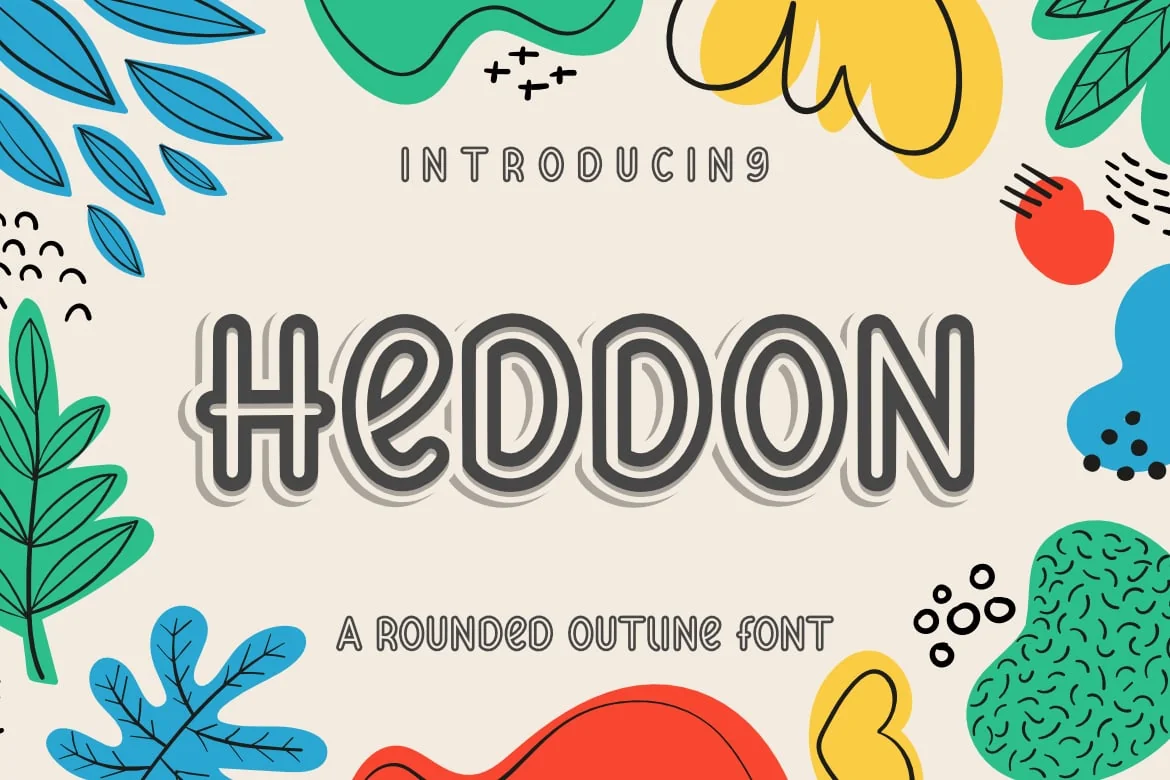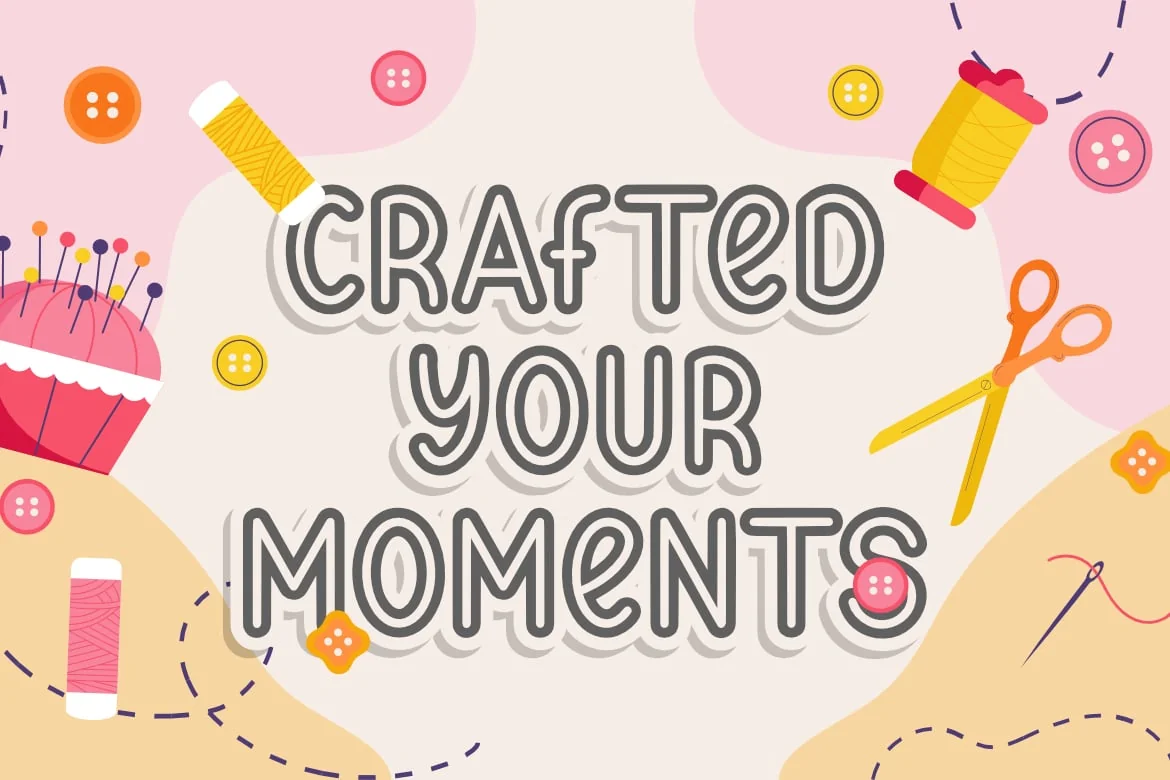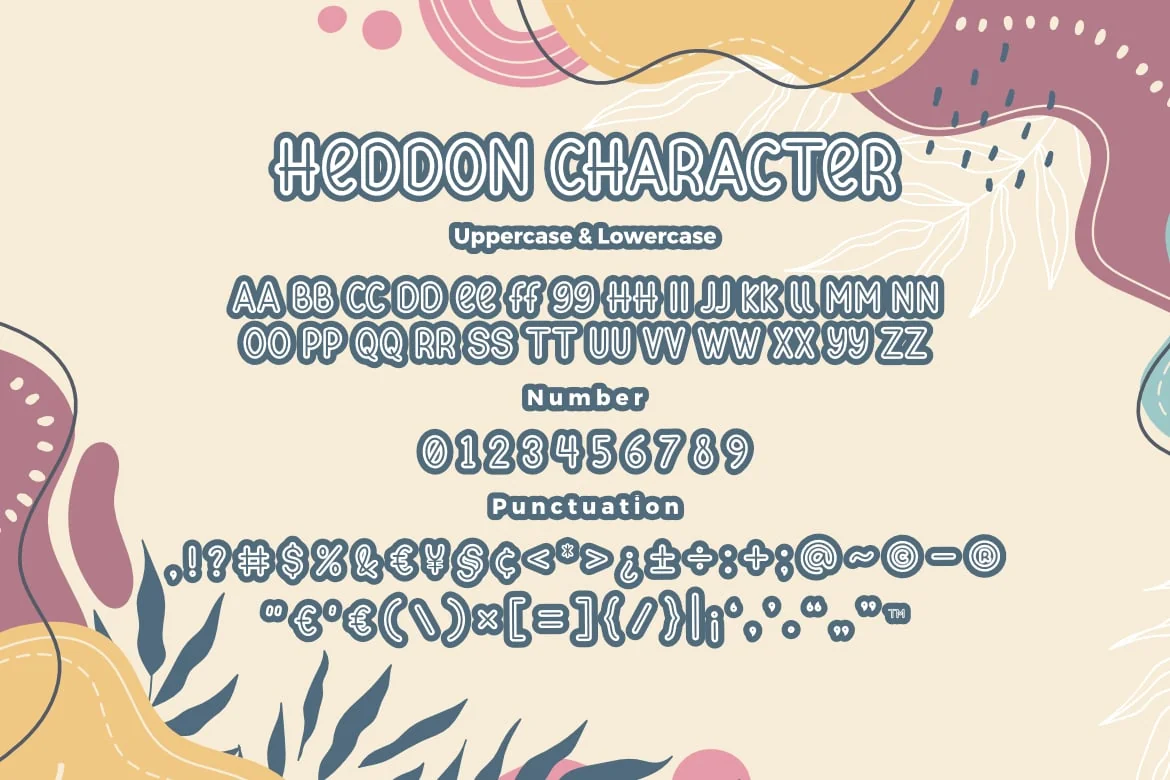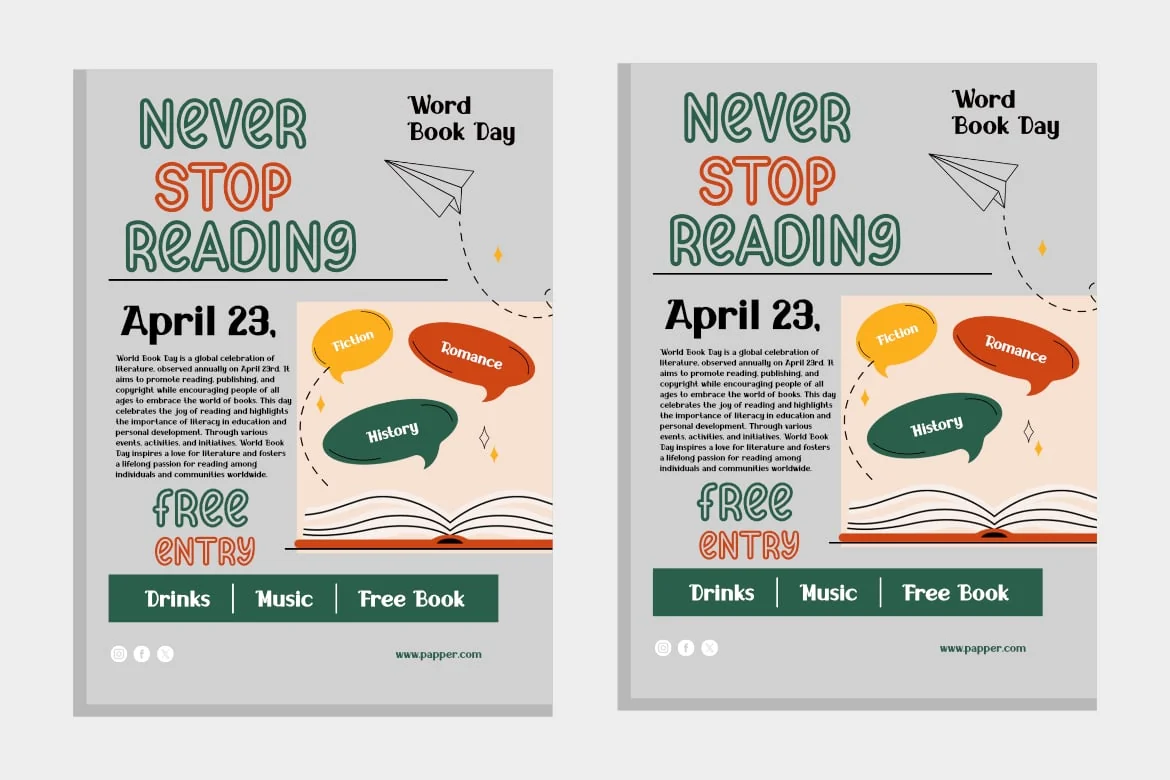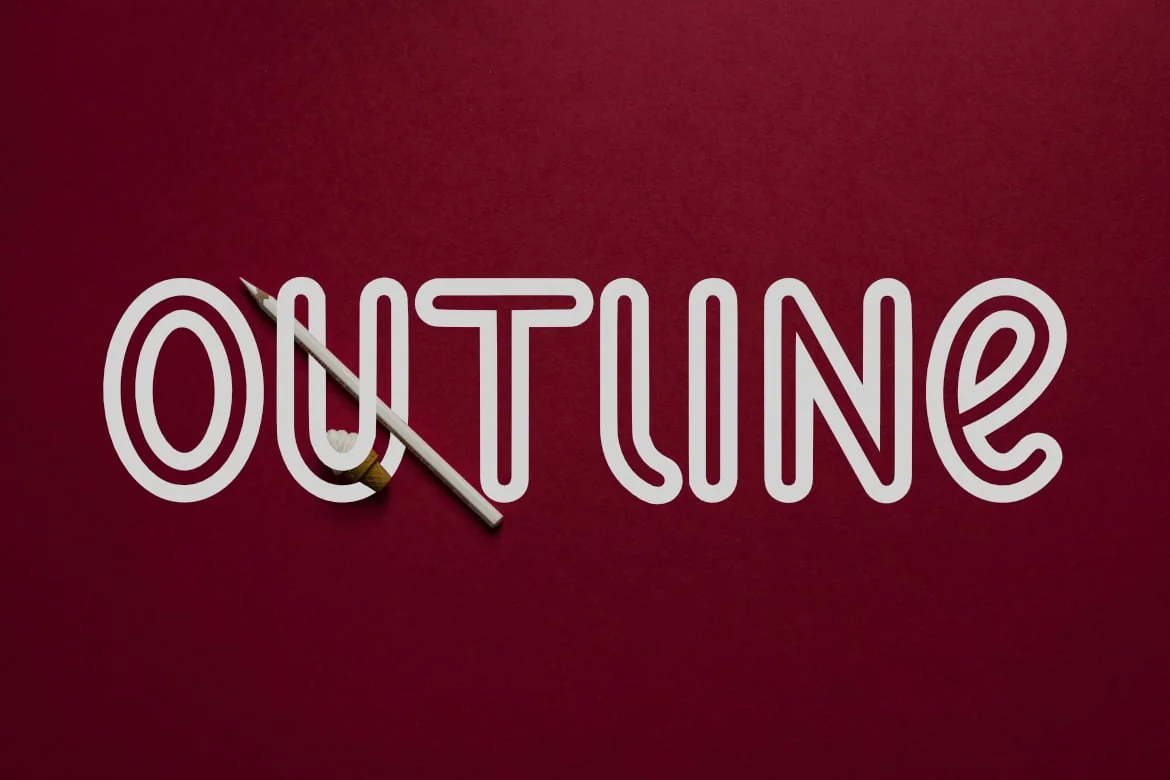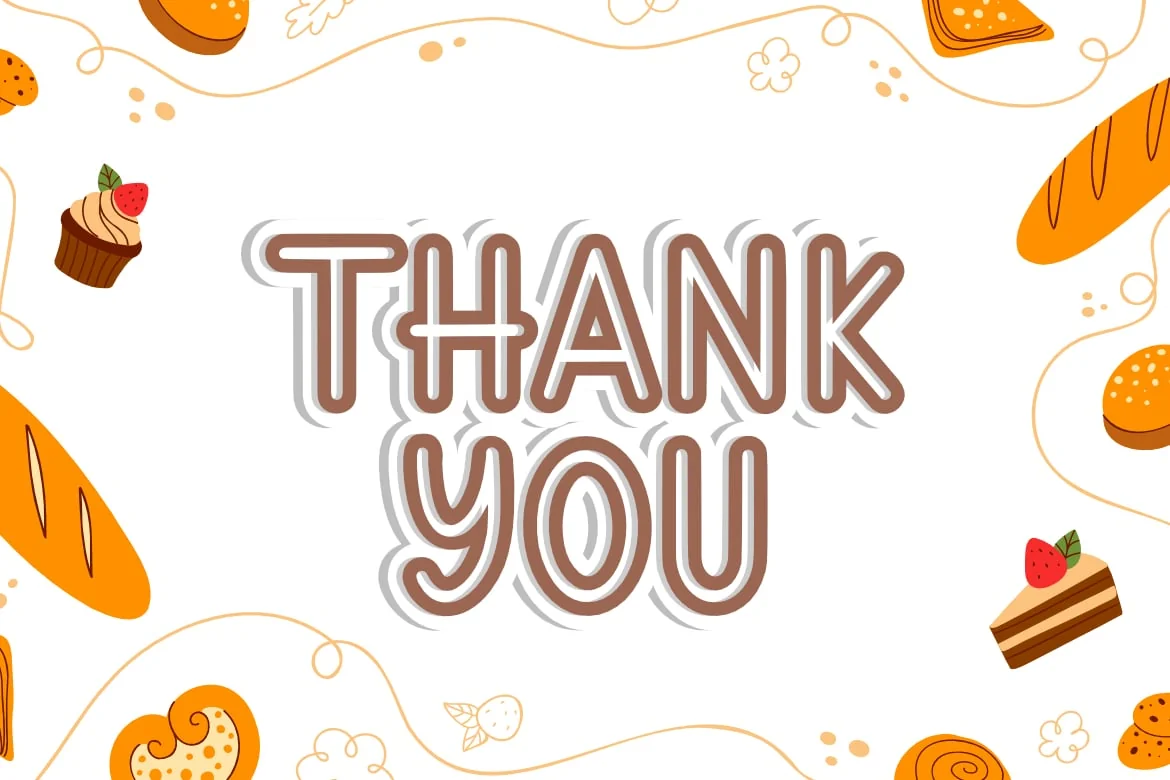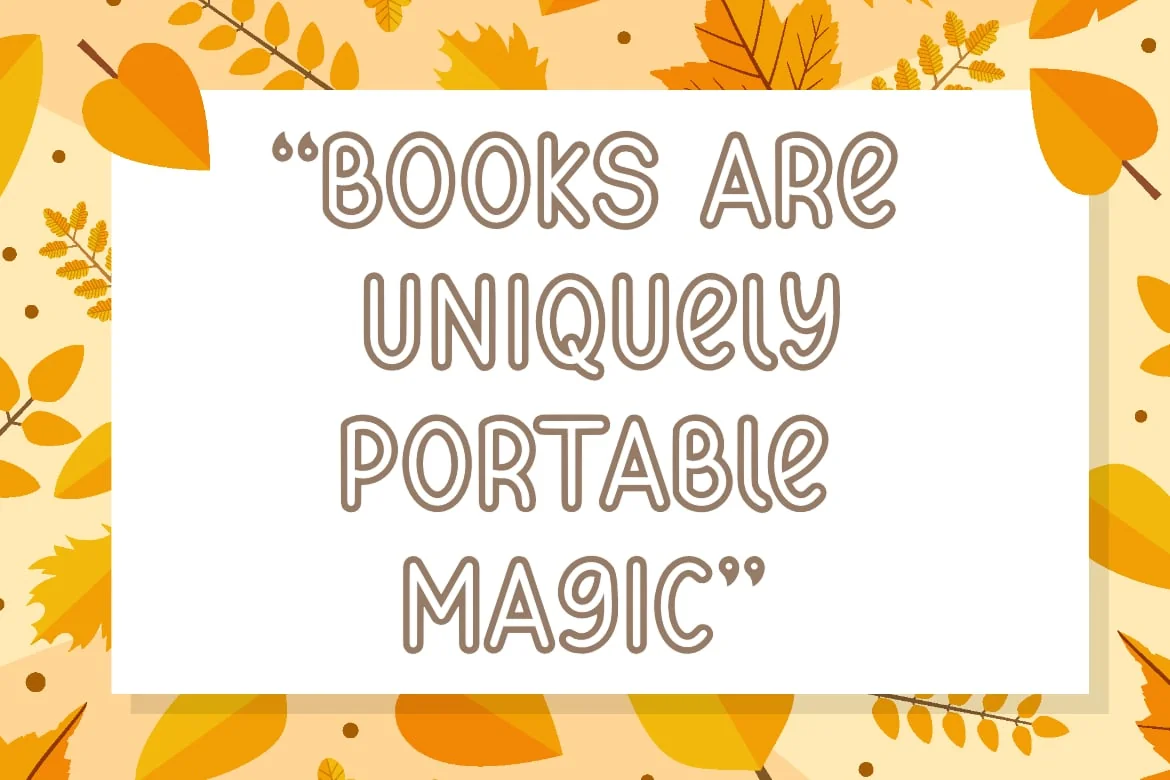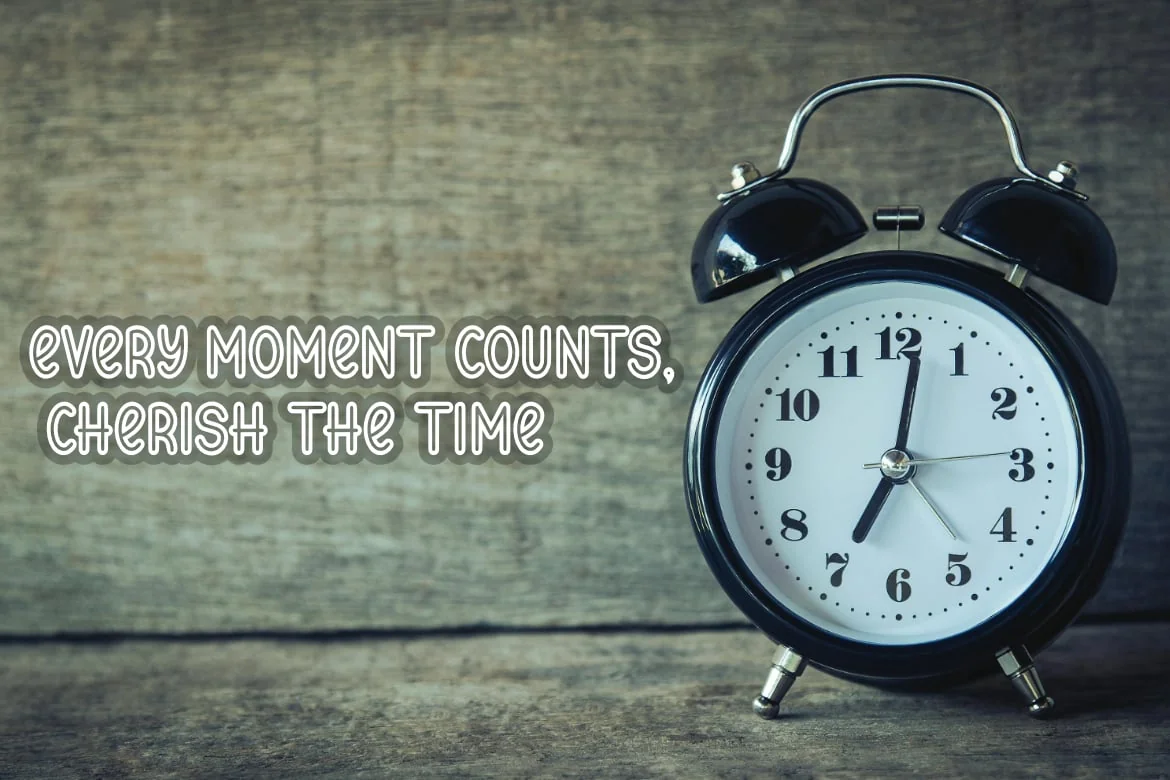
Heddon a Outline Rounded Font
Heddon a Outline Rounded Font, This font is made with a high premium quality level which you can use as flyers, quotes, posters, banners, packaging, merchandise, logotypes and much more.